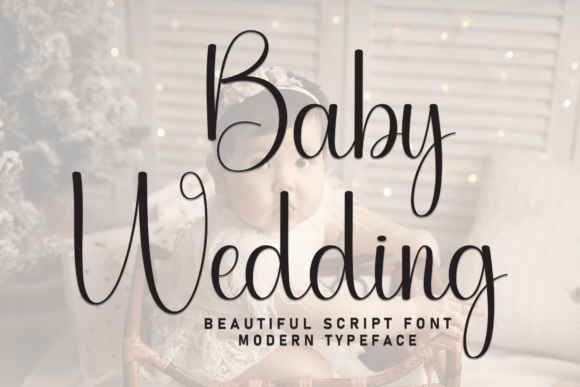
Unlocking the Whimsy of Baby Wedding Font
Have you ever stared at a blank canvas, waiting for the perfect font to bring your design to life? For many creatives, this is a familiar moment of anticipation and excitement. And for those who specialize in wedding design, the search for the perfect font can be especially daunting. That’s where the ‘Sweet and Friendly’ font comes in – a charming, handwritten display typeface that adds a playful touch to any design.
This beguiling font is specifically designed to elevate wedding invitations and cards, transforming them into stunning works of art. With its carefree allure and whimsical charm, ‘Sweet and Friendly’ font is a valuable asset for designers looking to add a personal touch to their creations. Whether you’re crafting bespoke wedding invitations or designing unique greeting cards, this font is sure to breathe new life into your designs.
Baby Wedding Font Key Features
- Font Style: A playful, cursive script font designed for wedding and baby-related designs.
- Unique Characteristics: Features swashes, ligatures, and alternate characters to add a personal touch to your designs.
Baby Wedding Font Review
I recently had the chance to work with the Baby Wedding Font, and I have to say it’s a cute and playful font that’s perfect for its intended use: baby shower invitations, kids’ party decorations, or even as a fun addition to a wedding design. ✨ The font’s rounded edges and cursive style give it a whimsical feel that’s sure to put a smile on anyone’s face.
Here are some things that work well with this font:
- It’s easy to read and understand, even in smaller font sizes. ✨
- The font is highly customizable, making it easy to adjust the colors, sizes, and styles to fit your design. ✨
- It’s a great choice for creating a cohesive look with other baby or wedding-themed elements. ✨
However, there are some limitations to keep in mind:
- The font may not be suitable for formal or professional designs, as it’s quite playful and cursive. ⚠️
- The font can be a bit tricky to pair with other fonts, as its rounded edges and cursive style can be quite distinctive. ⚠️
Overall, I think the Baby Wedding Font is a great choice for designers who want to add a touch of whimsy and fun to their designs. While it may not be suitable for every project, it’s a great addition to any designer’s toolkit.
Tips for Getting the Most Out of the Baby Wedding Font
Use the Baby Wedding Font to add a touch of whimsy and romance to your designs. It’s perfect for wedding invitations, baby showers, and other special occasions. Experiment with different font combinations and sizes to create a unique look.
The Baby Wedding Font is ideal for:
- Baby shower invitations and decorations
- Wedding and baby-themed social media graphics
- Personalized gifts and cards
Alternatives to Baby Wedding Font
Great Vibes is a beautiful, elegant script font perfect for weddings, engagements, and other special occasions. It features a classic, romantic feel that is sure to impress. Great Vibes is ideal for use on invitations, stationery, and other wedding-related materials. Compared to Baby Wedding Font, Great Vibes has a more refined and sophisticated look, making it a great choice for high-end weddings or those with a vintage aesthetic.
Pacifico is a modern, cursive font that is perfect for adding a touch of elegance and sophistication to your designs. It features a relaxed, beachy vibe that is great for outdoor or destination weddings. Pacifico is ideal for use on wedding invitations, programs, and other materials that need a stylish and modern look. Compared to Baby Wedding Font, Pacifico has a more laid-back and casual feel, making it a great choice for bohemian or beach-themed weddings.